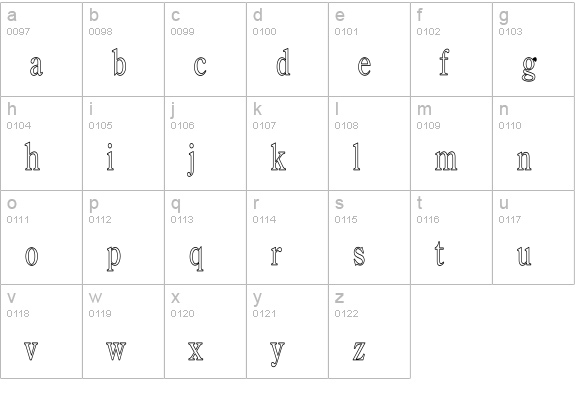
CenturyOldStyleHC Font Details
CenturyOldStyleHC is a timeless and elegant font that exudes sophistication and class. With its classic serifs and graceful curves, this font is perfect for adding a touch of old-world charm to your designs. Whether you're working on a vintage-inspired project or simply want to elevate your typography game, CenturyOldStyleHC is sure to impress. The best part? CenturyOldStyleHC is available for free download at FontsMarket.com. Now you can enhance your creations with this exquisite font without breaking the bank. Don't miss out on the opportunity to add a touch of timeless elegance to your designs with CenturyOldStyleHC. Download it today and let your creativity shine!